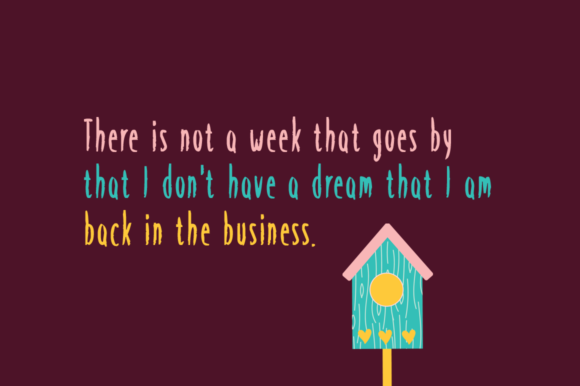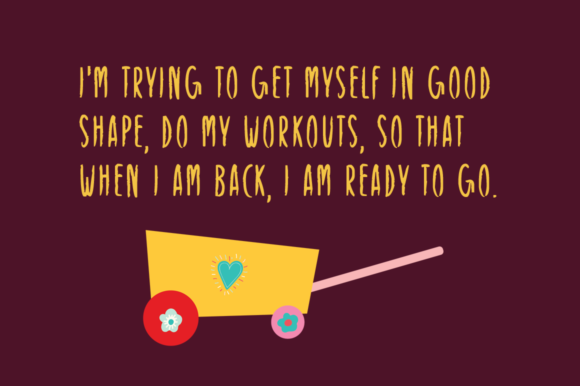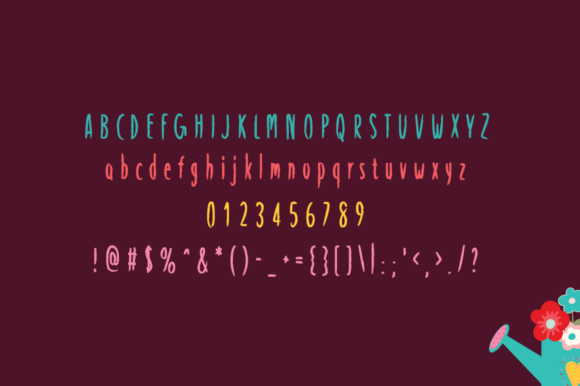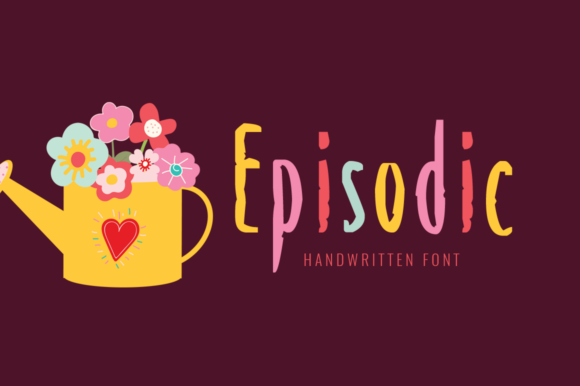
Episodic Font: A Charming and Fun Display Font to Elevate Your Designs
Are you tired of using the same old fonts in your designs? Look no further than Episodic Font, a charming and fun display font that’s sure to add a touch of personality to your projects. With its unique feel and incredible style, Episodic Font is the perfect choice for designers and crafters looking to make a statement.
What is Episodic Font?
Episodic Font is a display font that’s designed to make a bold impression. Its charming and fun style is perfect for adding a touch of whimsy to your designs, while its unique feel sets it apart from more traditional fonts. Whether you’re working on a logo, a poster, or a social media graphic, Episodic Font is sure to turn heads.
Key Features of Episodic Font
So what makes Episodic Font so special? Here are just a few of its key features:
- Unique feel: Episodic Font has a one-of-a-kind style that’s sure to set your designs apart from the crowd.
- Charming and fun: This font is perfect for adding a touch of personality to your designs, from playful logos to eye-catching posters.
- Display font: Episodic Font is designed to make a bold impression, making it perfect for headlines, titles, and other display text.
- Easy to use: With its clean and simple design, Episodic Font is easy to read and use in a variety of contexts.
How to Use Episodic Font in Your Designs
So how can you use Episodic Font in your designs? Here are a few ideas to get you started:
- Logos: Use Episodic Font to create a playful and memorable logo for your brand or business.
- Posters: Add a touch of whimsy to your posters with Episodic Font, perfect for advertising events, promotions, or new products.
- Social media graphics: Use Episodic Font to create eye-catching social media graphics that are sure to stand out in crowded feeds.
- Signage: Episodic Font is perfect for creating eye-catching signage for businesses, events, or exhibitions.
Why Choose Episodic Font?
With so many fonts to choose from, why should you choose Episodic Font? Here are just a few reasons:
- Unique style: Episodic Font has a one-of-a-kind style that’s sure to set your designs apart from the crowd.
- High-quality design: This font is designed with quality and craftsmanship in mind, ensuring that it looks great in any context.
- Easy to use: Episodic Font is easy to read and use, making it perfect for a wide range of design applications.
- Inspirational: With its charming and fun style, Episodic Font is sure to inspire your creativity and take your designs to the next level.
Get Inspired by Episodic Font
Episodic Font is more than just a font – it’s a design inspiration. With its unique feel and charming style, it’s sure to spark your creativity and inspire you to create something amazing. Whether you’re a seasoned designer or just starting out, Episodic Font is the perfect choice for anyone looking to elevate their designs and make a statement.